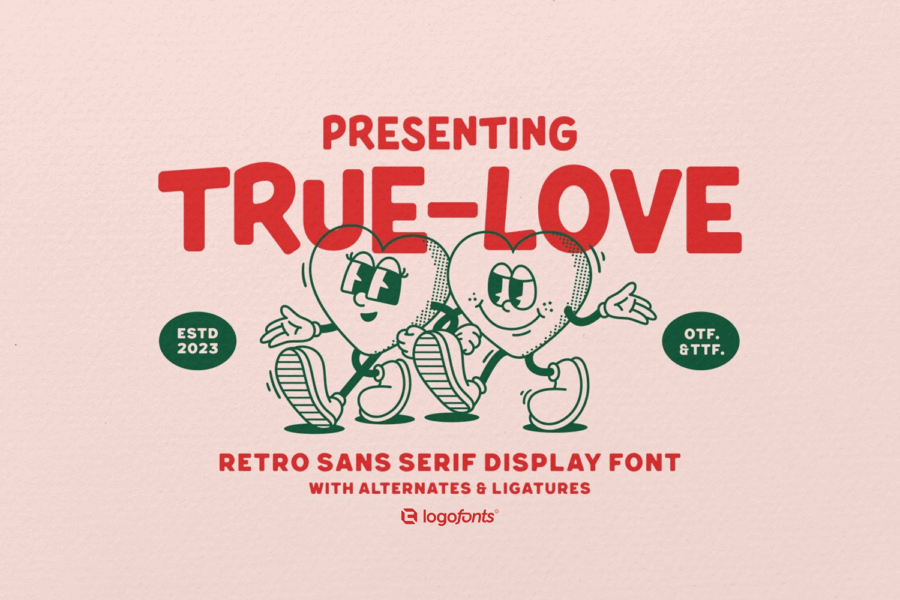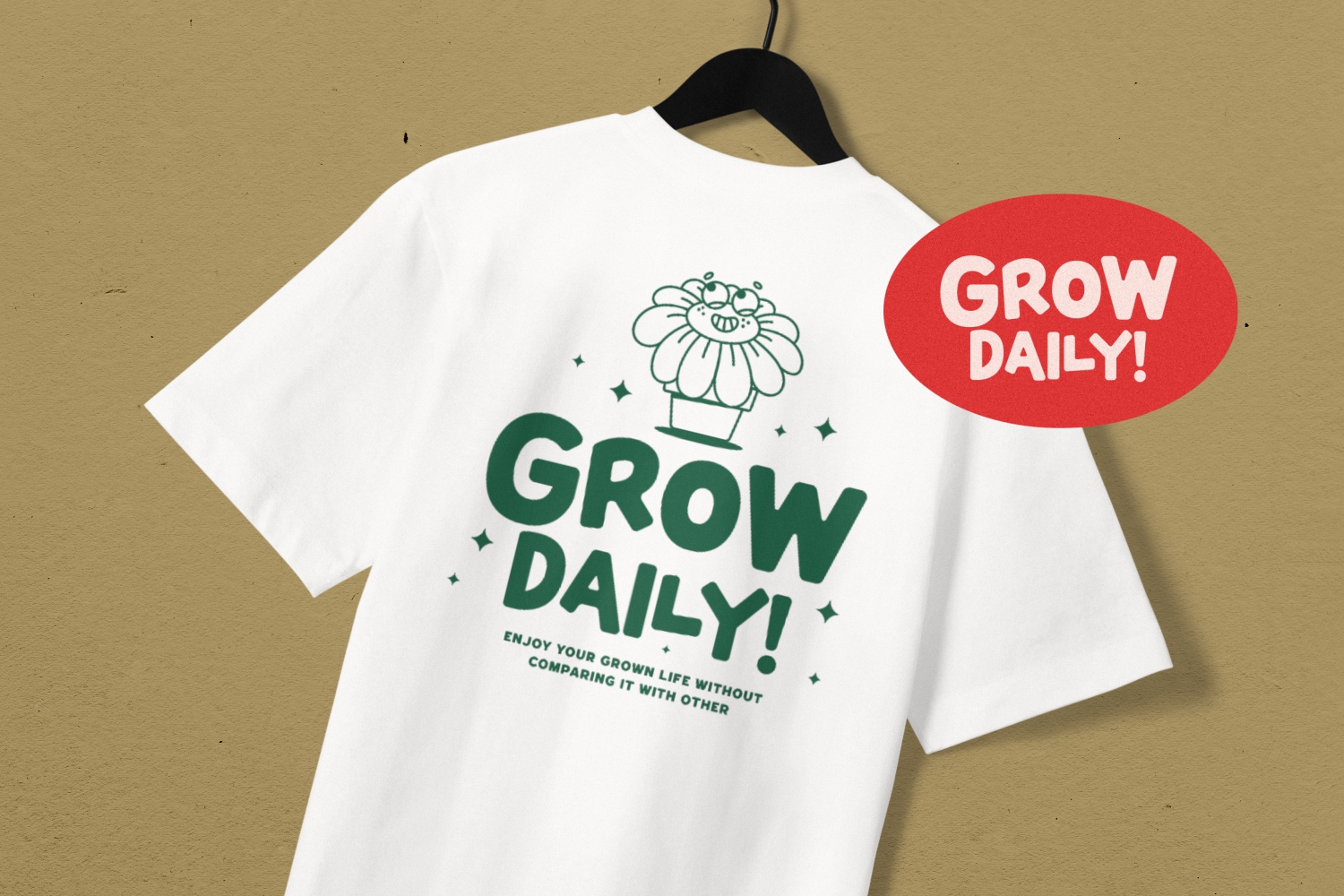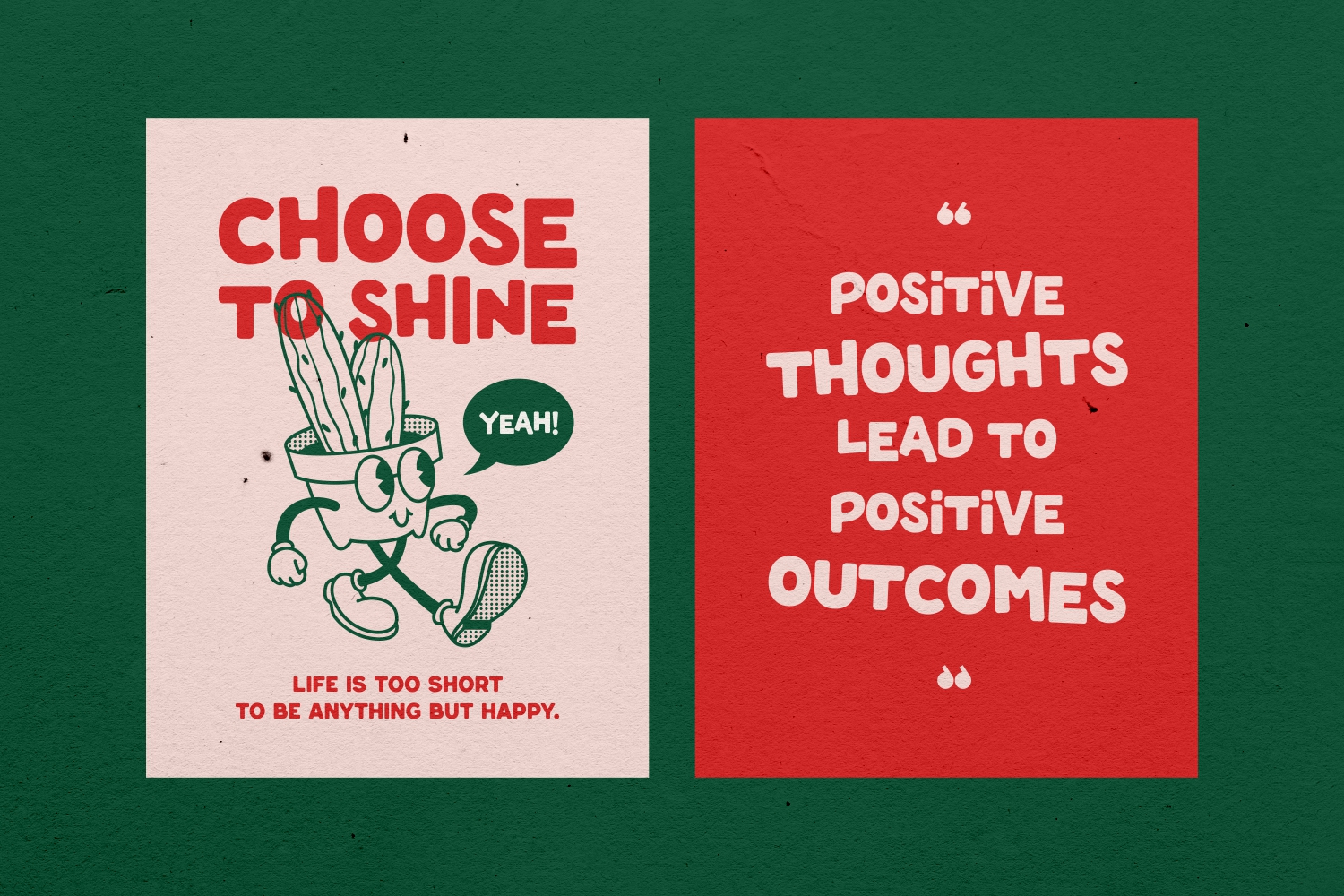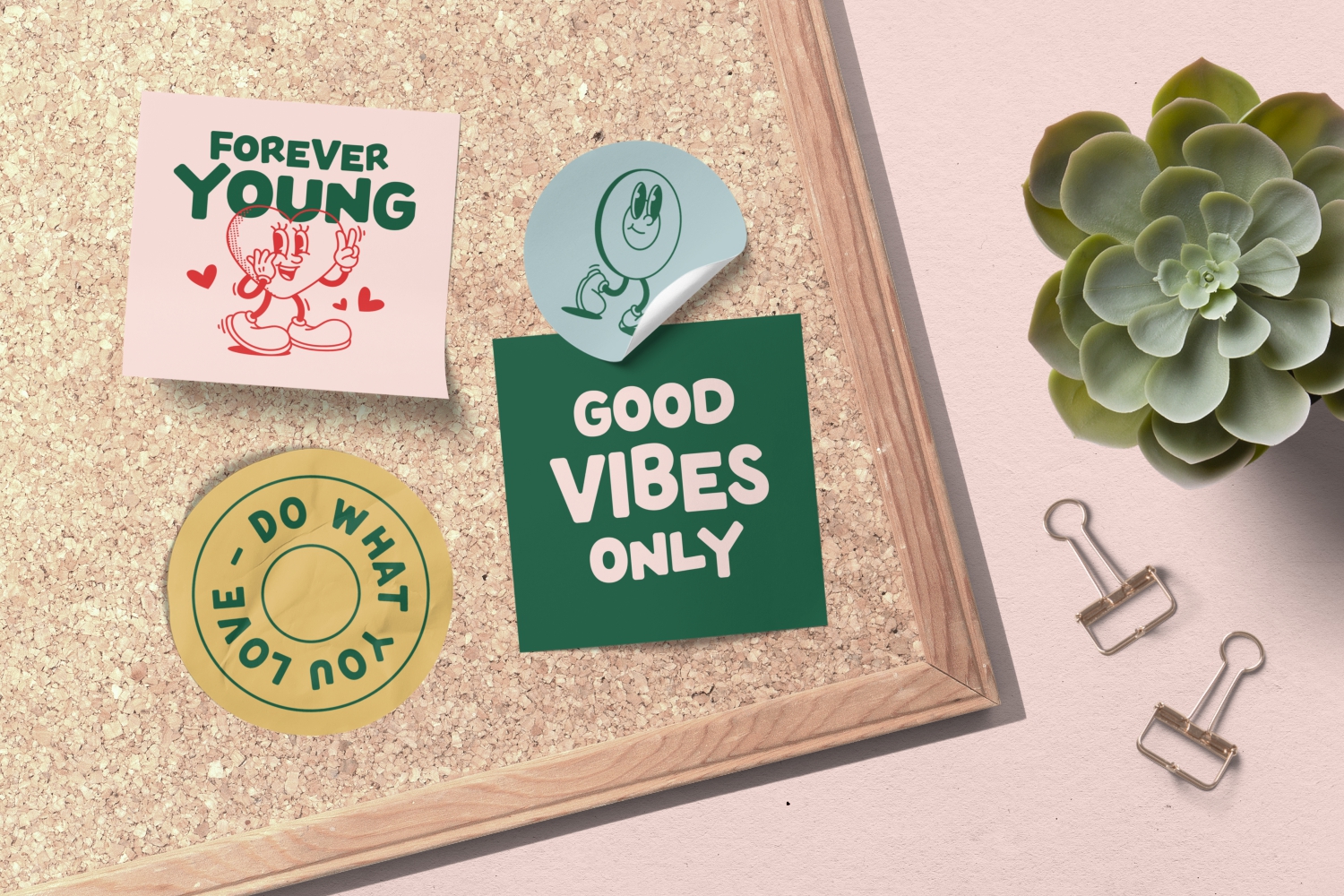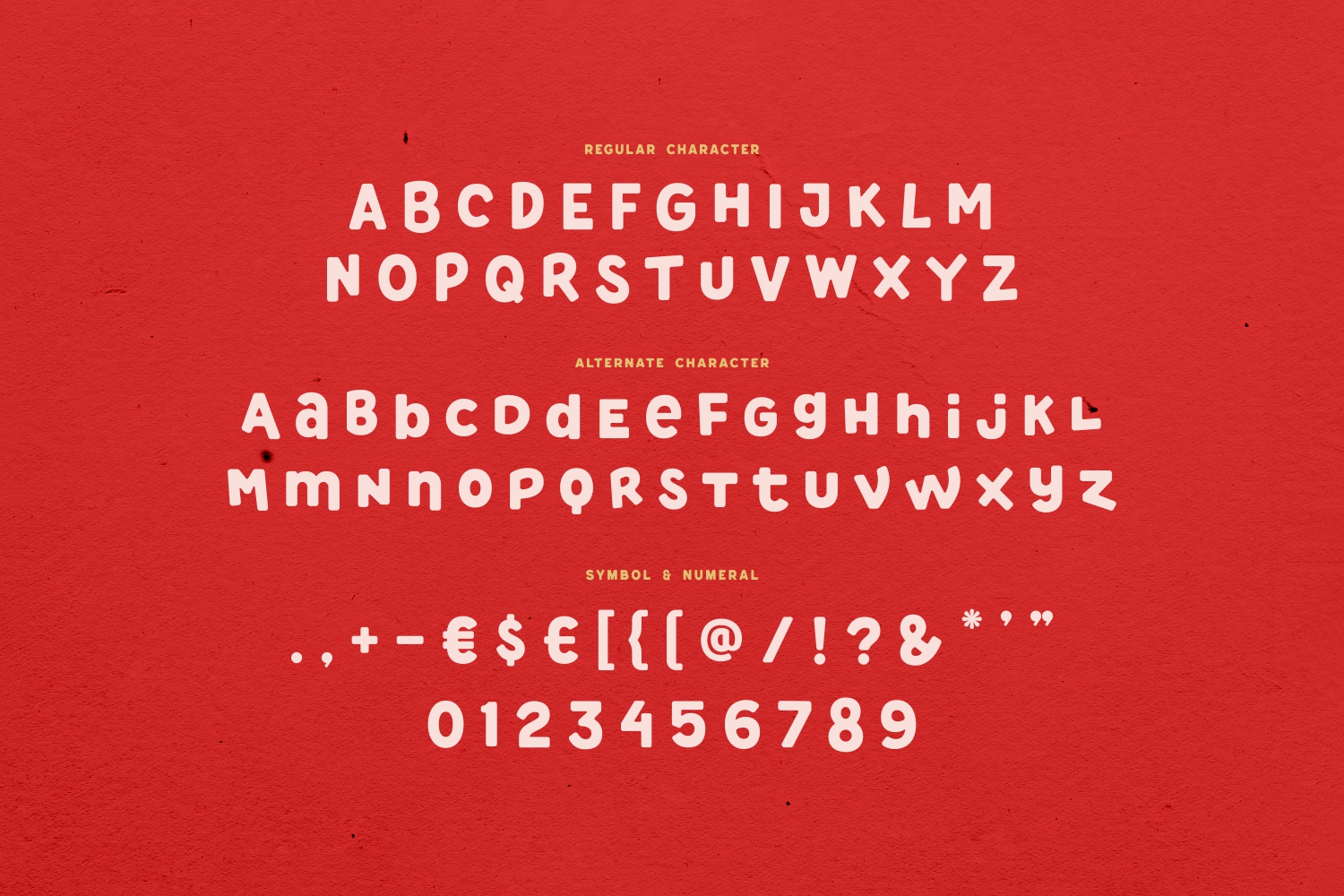
True-Love is a retro-inspired display font that brings playful charm and nostalgic energy into your designs. With its chunky, rounded characters and bold presence, this font is perfect for eye-catching headlines, apparel graphics, and cheerful branding. The font includes both uppercase and lowercase letters, alternate characters, and a full set of symbols and numerals — giving you the creative freedom to mix styles and enhance visual interest.
Designed for projects that need a touch of personality and fun, True-Love shines in poster designs, sticker art, children’s books, and social media graphics. Its friendly, bubbly feel and cartoonish curves make it ideal for conveying positivity, warmth, and joy. Whether you’re creating merchandise or a retro-themed campaign, True-Love adds a delightful punch to your typography.
True Love